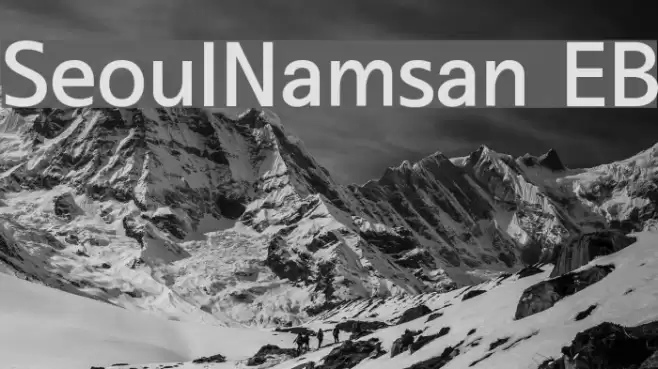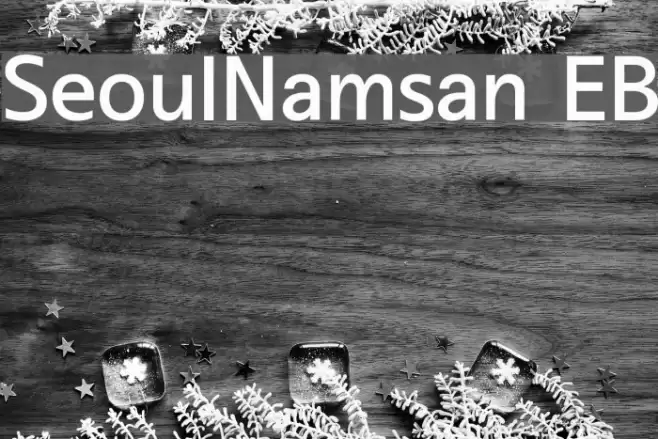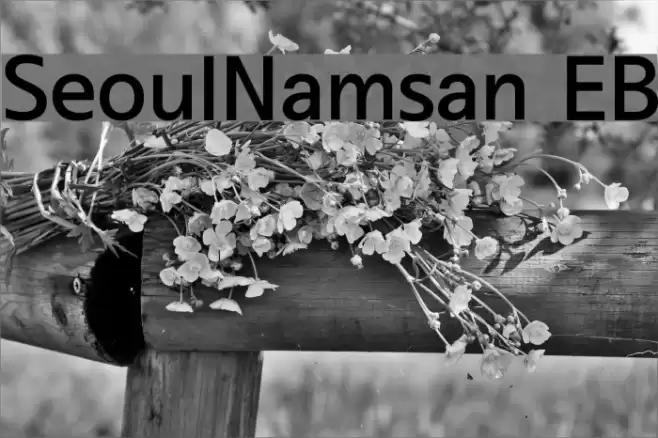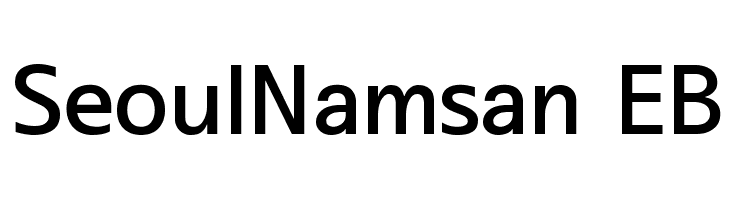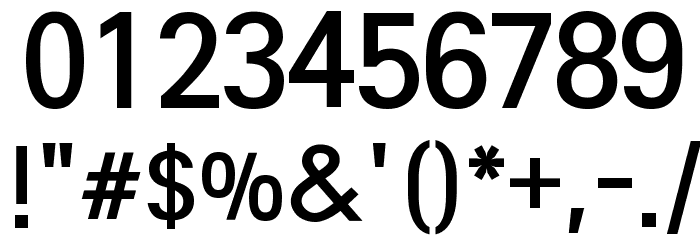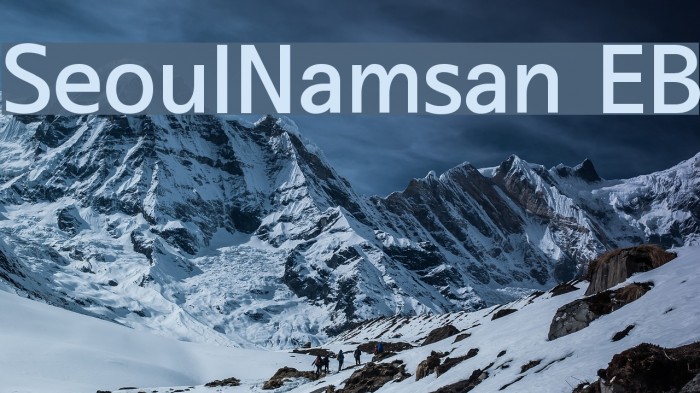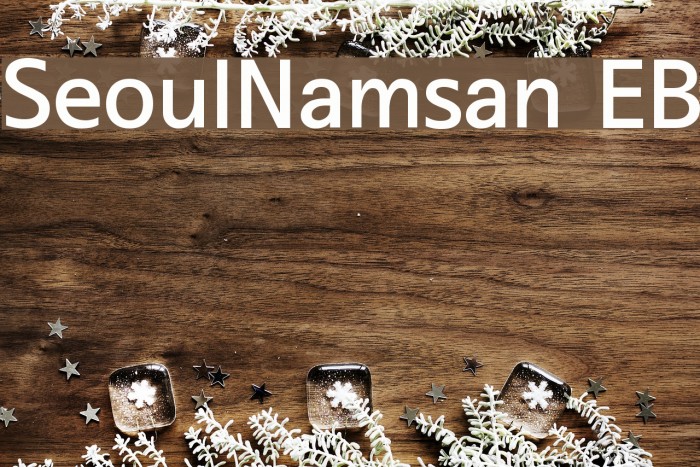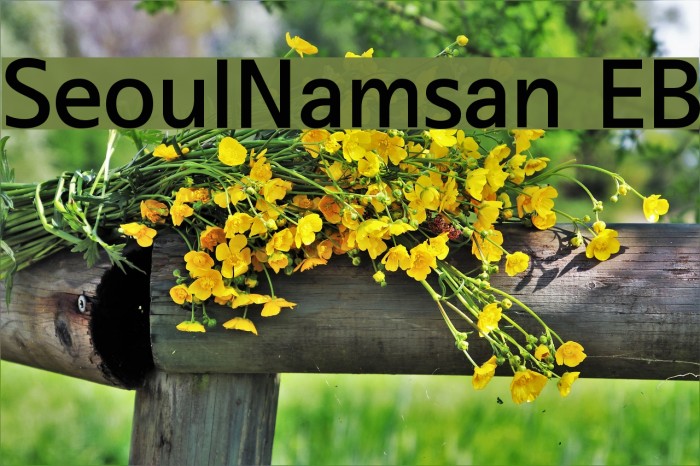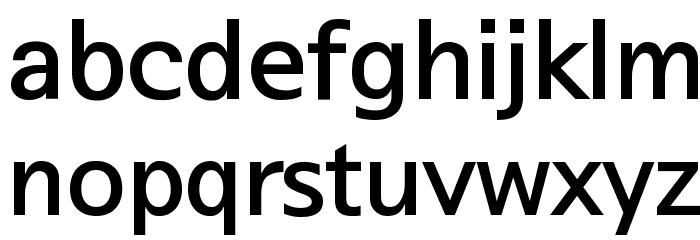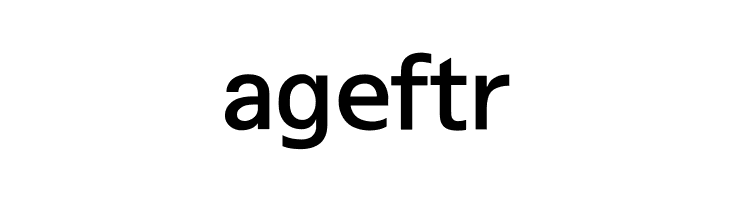
SeoulNamsan EB Font
SeoulNamsan EB Description
This typeface presents a clean and modern aesthetic with a sans-serif style. The characters are bold and well-defined, offering excellent readability. The uppercase and lowercase letters are proportionate, with a consistent stroke width that contributes to a uniform appearance. The numerals are clear and distinct, making them suitable for various applications. Special characters are included, maintaining the same bold and modern design. The overall look is sleek and professional, making it versatile for both digital and print media.
A bold, modern sans-serif typeface with excellent readability from Uncategorized fonts.
- Proposed Projects: Ideal for branding, advertising, web design, and editorial projects where clarity and modernity are essential.